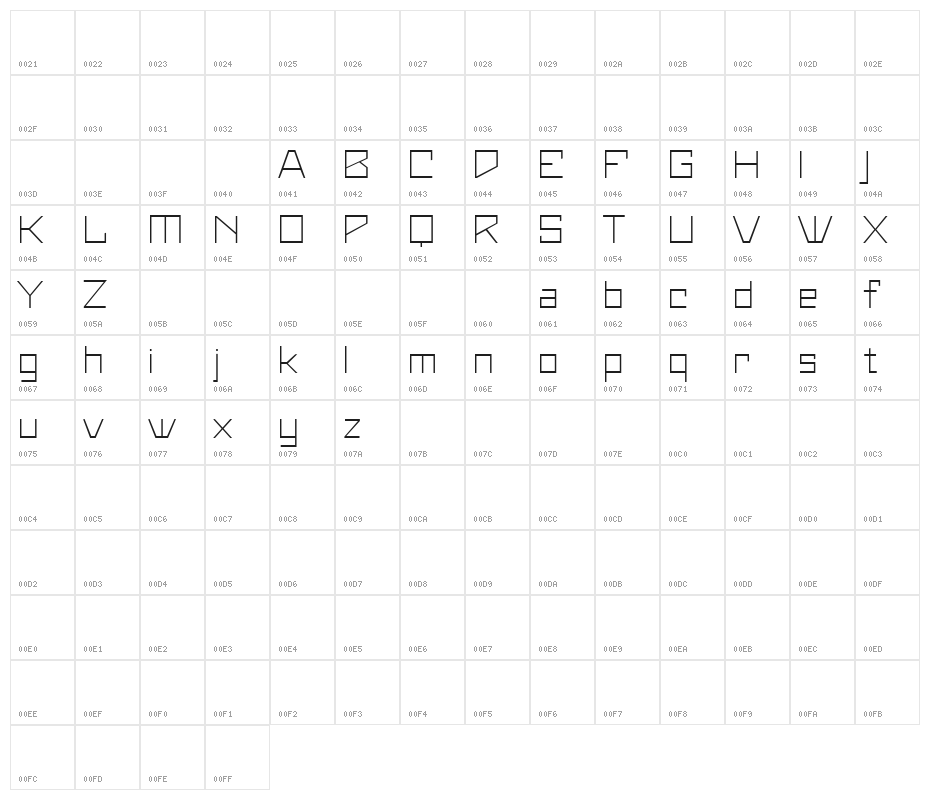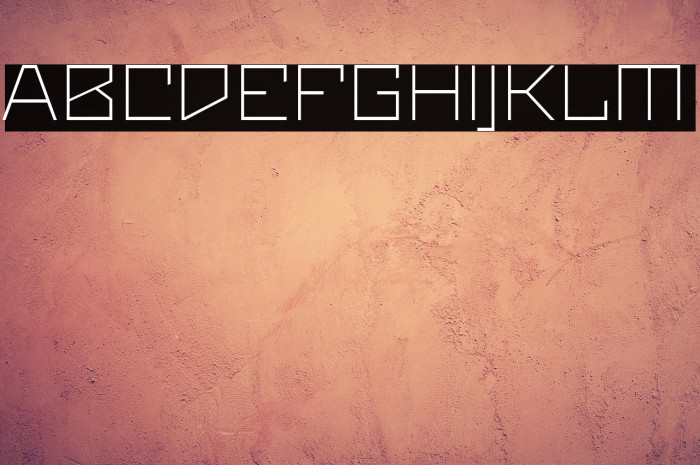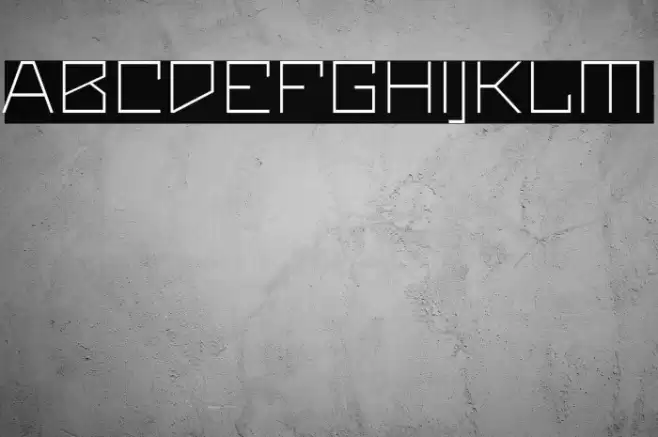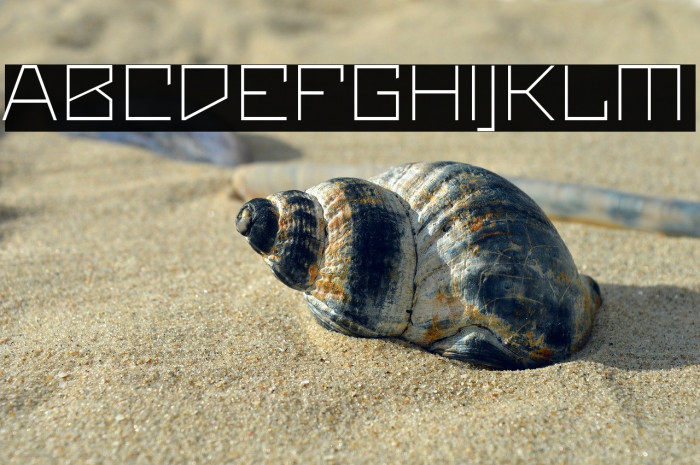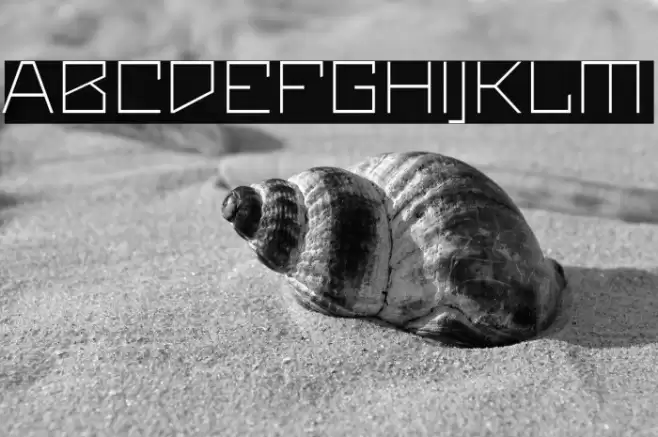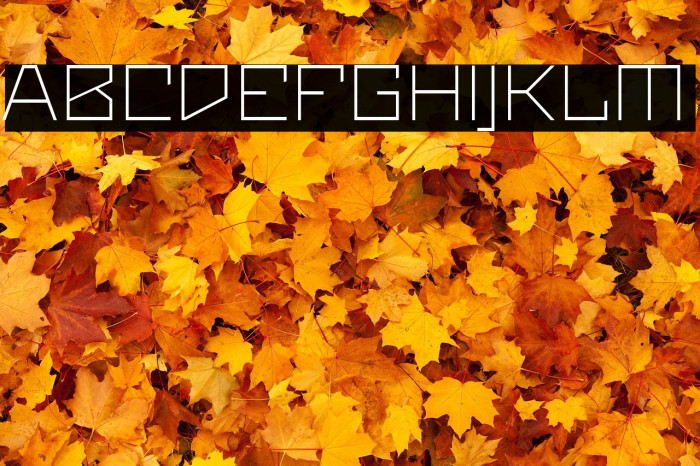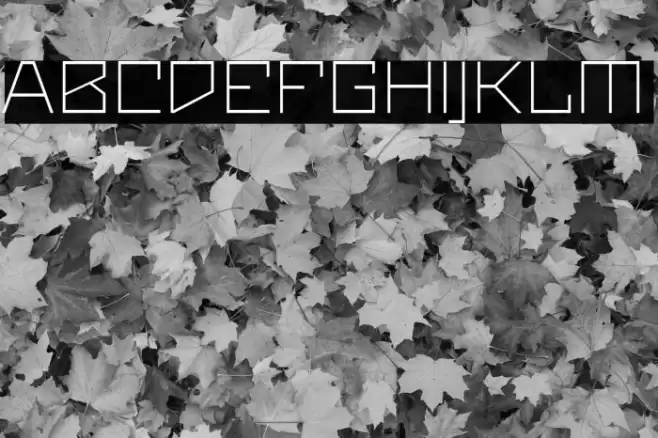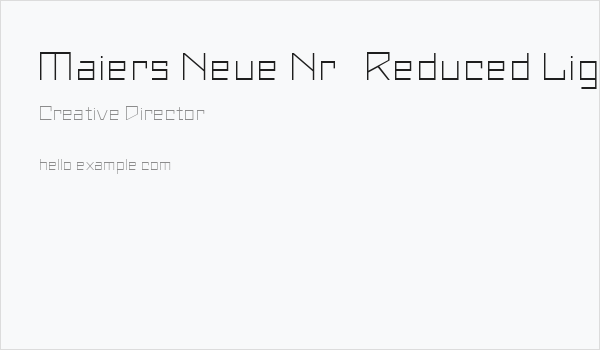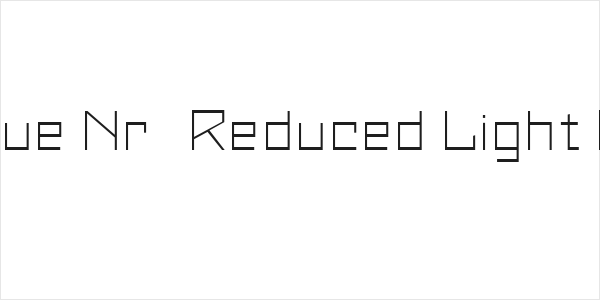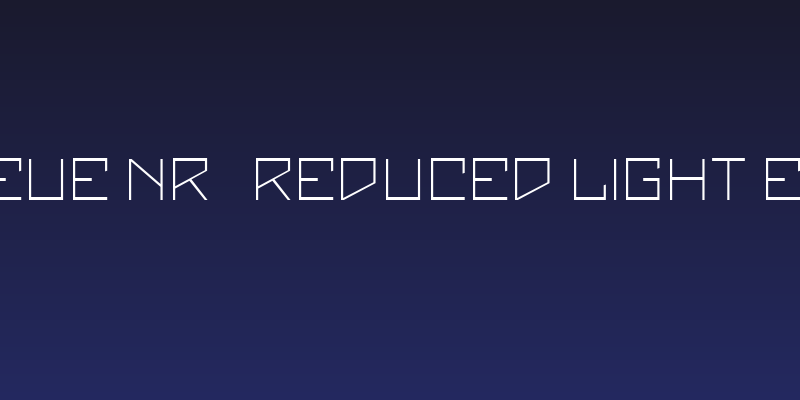
Maiers Neue Nr.8 Reduced Light Expanded Font
Maiers Neue Nr.8 Reduced Light Expanded Description
This font features a geometric and minimalist design with a distinct modern flair. The characters are constructed with straight lines and sharp angles, giving it a technical and futuristic appearance. The uppercase letters maintain a uniform height, while the lowercase letters are slightly shorter, preserving readability. The font's expanded width allows for spacious letterforms, enhancing its legibility. The overall style is clean and precise, making it suitable for contemporary design projects. The consistent stroke width across all characters contributes to its low contrast, emphasizing its sleek and streamlined aesthetic.
Use CaseLogos, Headlines, Digital interfaces
Proposed ProjectsIdeal for tech branding, modern posters, digital interfaces, and architectural designs.